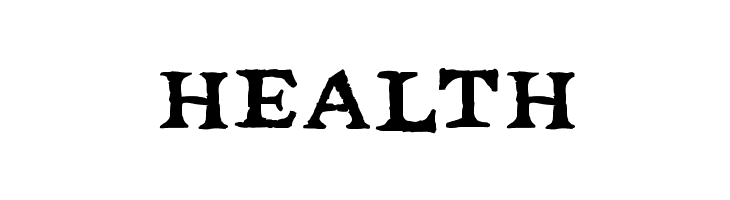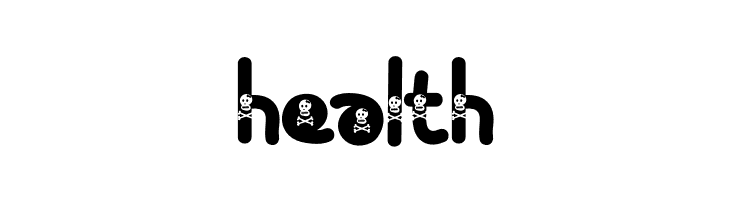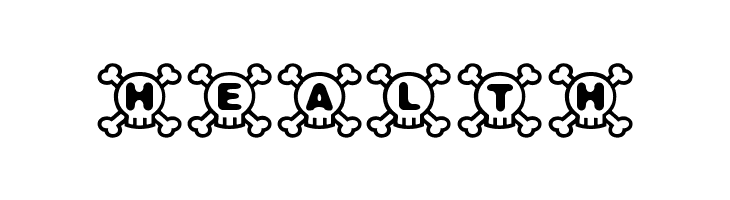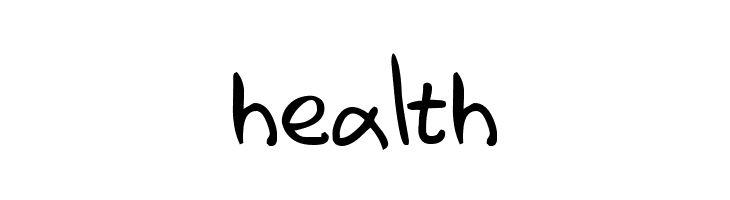
A playful, bone-themed font perfect for creative and themed projects.
A decorative font with characters encased in skull and crossbones motifs.
A playful, skull-themed decorative font with bold outlines.
A playful, handwritten-style font with irregular, whimsical strokes.
A bold, angular serif font with a distinctive, edgy appearance.
A rugged, adventurous font with a hand-drawn, pirate map aesthetic.
Pirate-themed decorative dingbat font with detailed icons.
A bold, playful font with skull and crossbones motifs integrated into each character.
A dynamic, hand-drawn script font with bold, sweeping curves and sharp angles.
A playful, handwritten font with uneven strokes and a casual style.